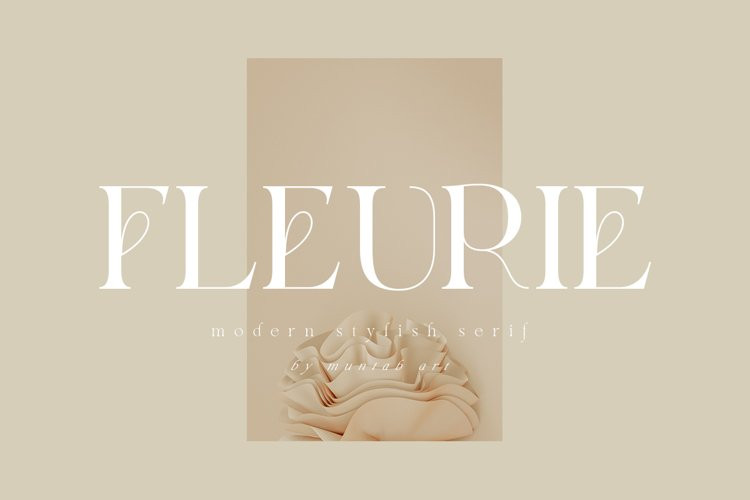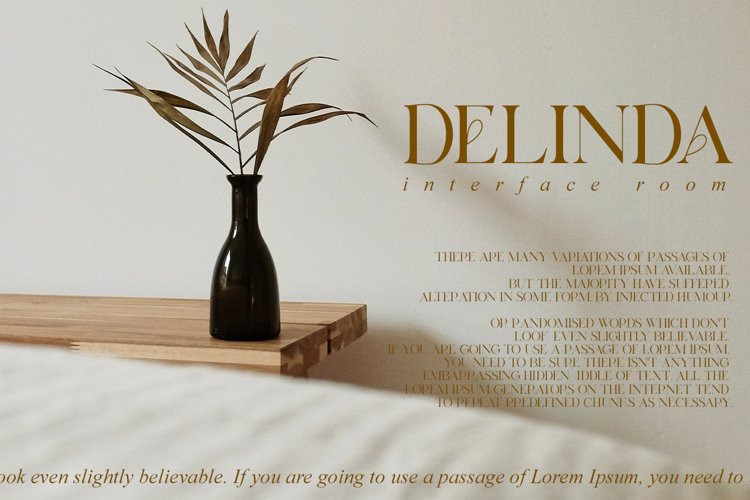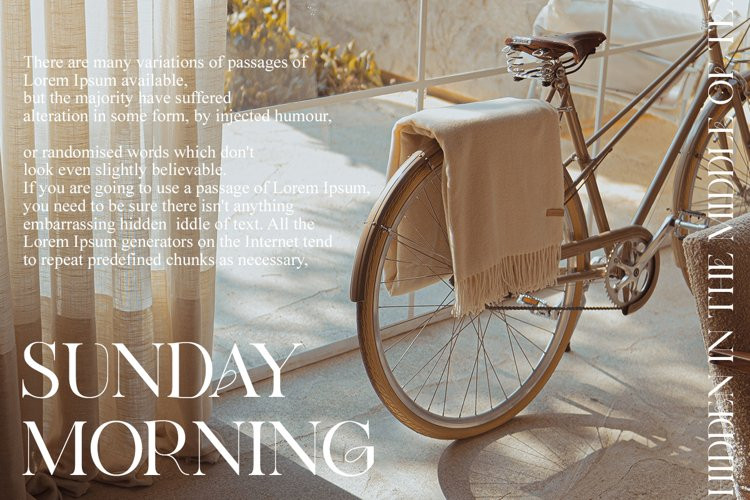
Fleurie Font
Fleurie FontFleurie fonts include uppercase letters, numerals, a large range of punctuation. Serif font with modern style. Created for poster, web design, branding, illustrations, badges, and some other works.